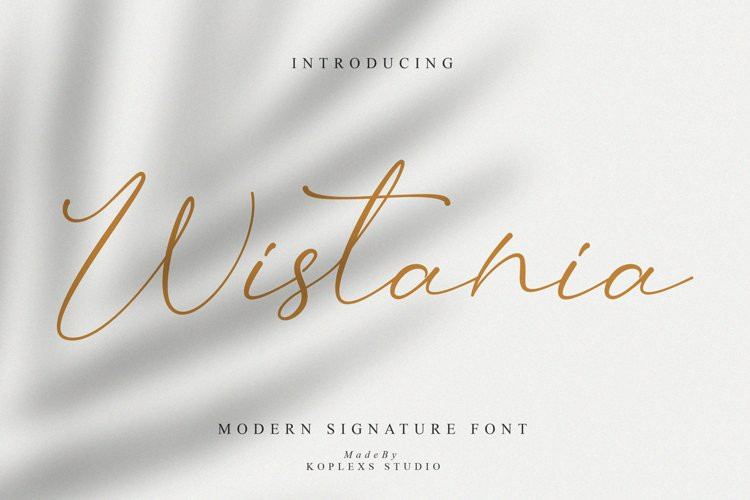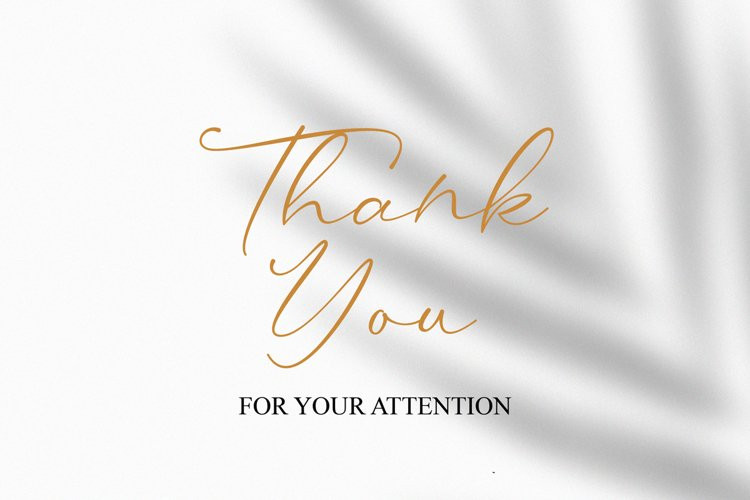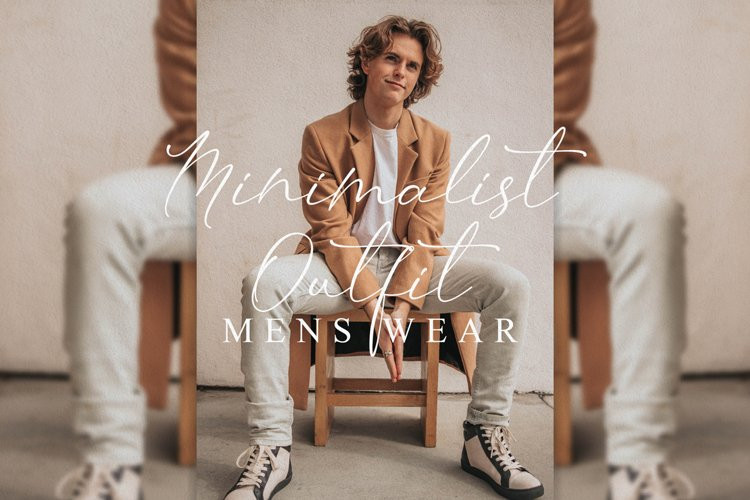
Wistania Font
Wistania FontWistania Modern Calligraphy
Wistania is made with the deepest outpouring of the heart. each stroke contains the meaning of love, affection, attention, happiness, sadness, joy, emotion and others which then become one which is contained in a letter or writing design which in my opinion is a beautiful writing design. and beauty is all on the basis of love.
Wistania Very suitable for use in making greeting card designs, Instagram posts, logo designs, wedding designs, social media posts, advertisements, product packaging, product designs, labels, photography, watermarks, invitations, stationery,wedding texts, romance quotes and so on, the first is about love.